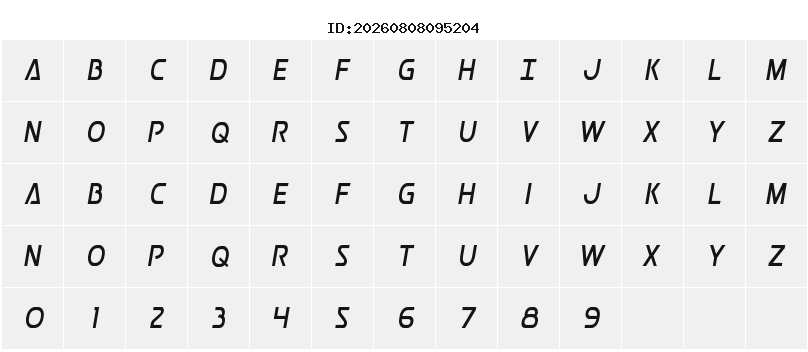
• Font Name: Postmaster Condensed
• Font Style: Condensed
About Postmaster Condensed.ttf
Postmaster Condensed.ttf is a modern, elegant sans-serif font designed for ultimate readability and visual harmony. Perfect for branding, headlines, web design, and print materials.